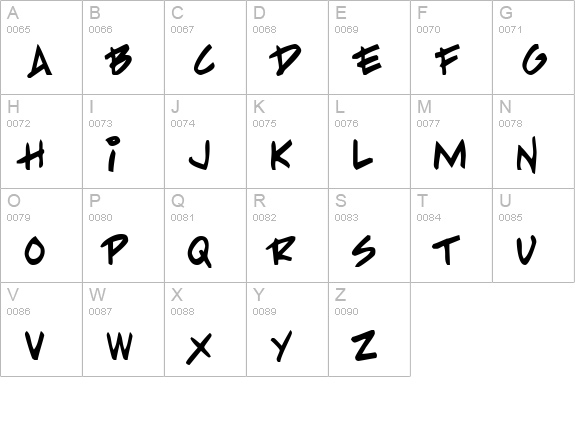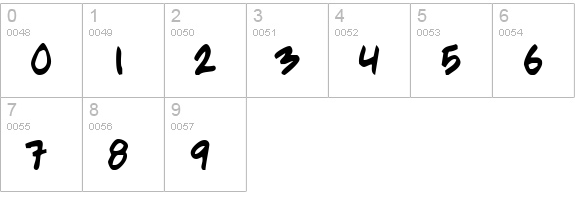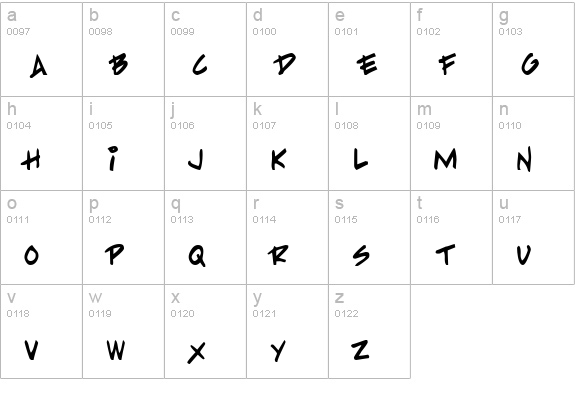
PP Handwriting Normal Font Details
PP Handwriting Normal is the standard, neutral variant in the PP typeface family \xE2\x80\x94 well suited to general body text, paragraphs, and standard typographic work.
PP Handwriting Normal is a charming and versatile handwriting font that adds a personal, authentic touch to any design project. With its natural and fluid strokes, this font captures the essence of handwritten notes and messages, evoking a sense of warmth and nostalgia. Whether you're creating invitations, greeting cards, or adding a personalized touch to your website or blog, PP Handwriting Normal is the perfect choice. This font offers a wide range of characters, including uppercase and lowercase letters, numbers, punctuation marks, and special characters, allowing you to fully express your creativity. Its balanced proportions and smooth curves ensure legibility, making it suitable for both short and long texts. One of the best features of PP Handwriting Normal is that it is freely available to download at FontsMarket.com. This means that you can easily access this delightful font without having to spend a penny. Whether you're a professional designer or a hobbyist, this free font offers an incredible value for your projects. With its versatility, charm, and the added benefit of being free, PP Handwriting Normal is a must-have font for anyone looking to add a personal touch to their designs. Download it now from FontsMarket.com and let your creativity flow with this beautiful handwritten font.